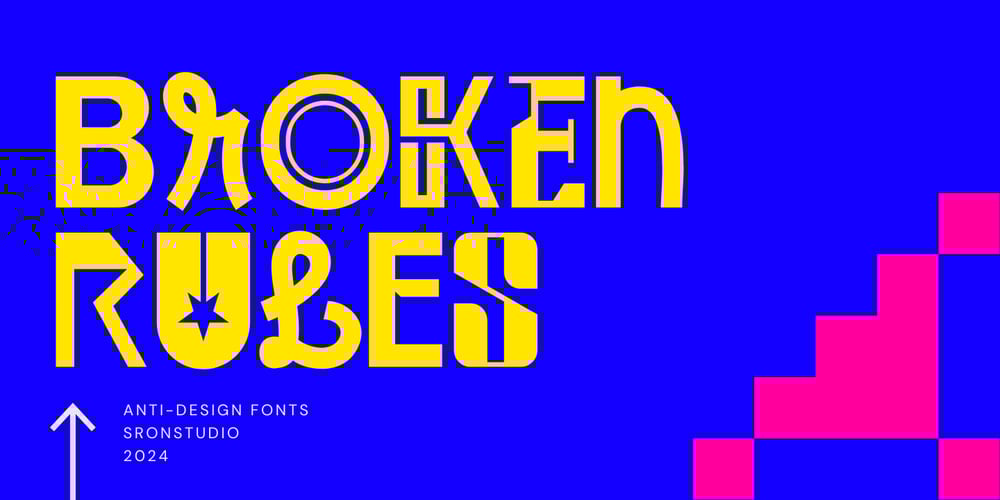
Broken Rules Font Family was designed by Muhamad Yusron Billah and published by Sronstudio. Broken Rules contains 1 styles and family package options. Broken Rules is an edgy anti-design font that defies conventions with its unconventional shapes and chaotic aesthetic. Perfect for experimental projects, bold statements, and creative freedom, this font breaks the norm to stand out!Included:- Upper & Lowercase- Numeral & Punctuation- PUA Encoded- Multilingual support- Simple Installation- Work both on Mac and WindowsThank you very much ๐